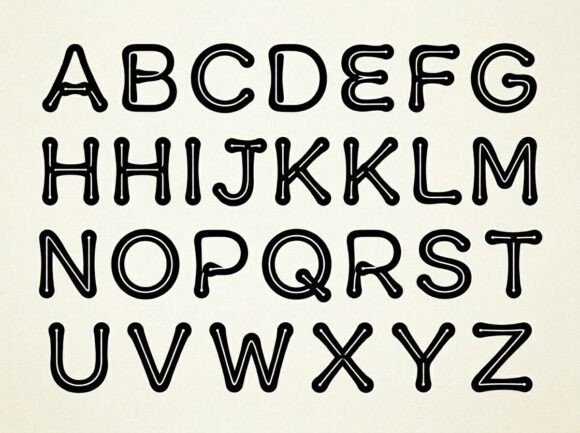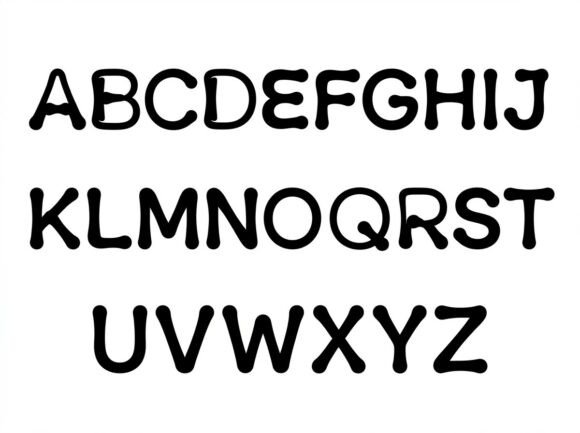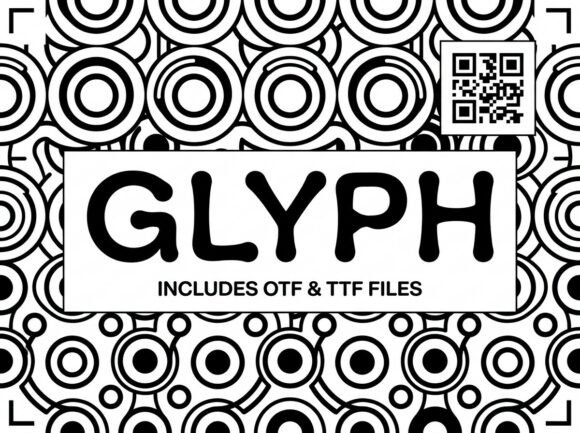
Introducing Glyph Font: A Stunning Decorative Display Font
Are you tired of using the same old fonts for your designs? Do you want to add a touch of uniqueness and creativity to your projects? Look no further than the Glyph Font, a decorative display font designed to turn heads. With its artistic elements and strong visual personality, this font is perfect for creators who want to break away from the ordinary.
What is Glyph Font?
Glyph Font is a carefully crafted decorative display font that is sure to make a statement. Its unique artistic elements and strong visual personality make it perfect for bold headlines, artistic logos, and creative packaging. Whether you’re a designer, craftsperson, or DIY enthusiast, this font is versatile enough to meet your needs while maintaining a professional and polished finish.
Key Features of Glyph Font
- Unique Artistic Elements: Glyph Font features unique artistic elements that set it apart from other fonts. Each letter is carefully designed to be a work of art, making it perfect for high-impact headlines, logos, and decorative initials.
- Strong Visual Personality: This font has a strong visual personality that is sure to grab attention. Its bold and eye-catching design makes it perfect for creators who want to make a statement.
- Versatile: Glyph Font is versatile enough for use in a variety of projects, from bold headlines and artistic logos to creative packaging.
- Professional and Polished Finish: Despite its bold and artistic design, Glyph Font maintains a professional and polished finish that is suitable for even the most discerning projects.
Why Choose Glyph Font?
There are many reasons why Glyph Font is the perfect choice for designers and crafters. Here are just a few:
- Add a Touch of Uniqueness: With Glyph Font, you can add a touch of uniqueness and creativity to your designs. Its bold and eye-catching design is sure to set you apart from the crowd.
- Perfect for Display Text: This font is specifically designed for display text, making it perfect for headlines, logos, and decorative initials.
- Professional Results: With Glyph Font, you can achieve professional results that are sure to impress. Its polished finish and artistic design make it perfect for even the most discerning projects.
Tips for Using Glyph Font
Here are a few tips for getting the most out of Glyph Font:
- Use it for Display Text: Glyph Font is specifically designed for display text, so use it for headlines, logos, and decorative initials.
- Experiment with Different Sizes: Don’t be afraid to experiment with different sizes to find the perfect fit for your project.
- Pair it with Other Fonts: Glyph Font pairs well with other fonts, so don’t be afraid to get creative and try out different combinations.